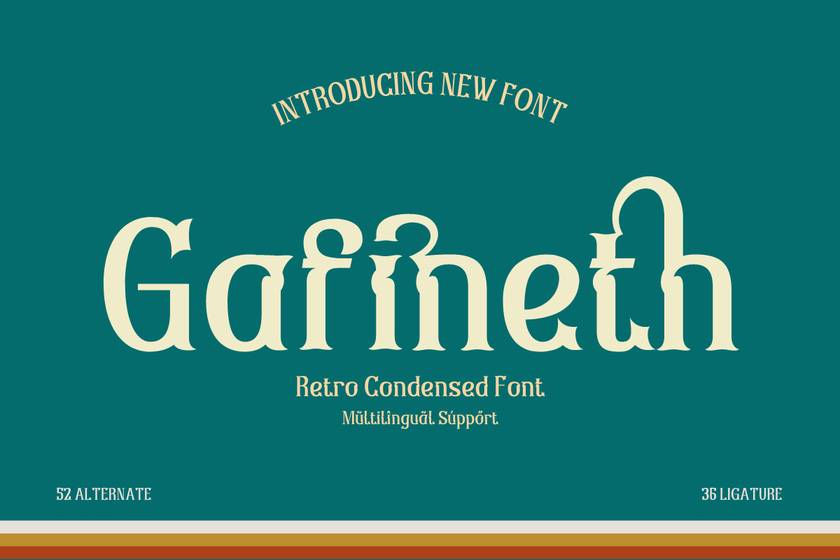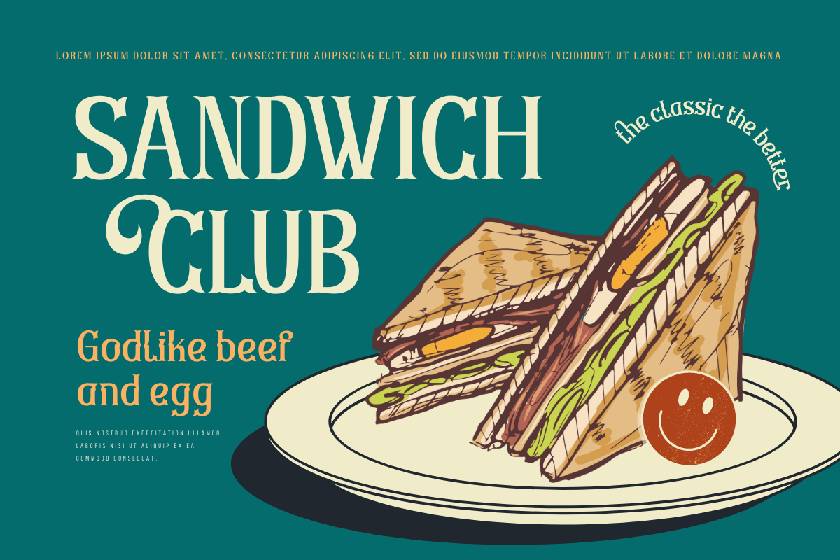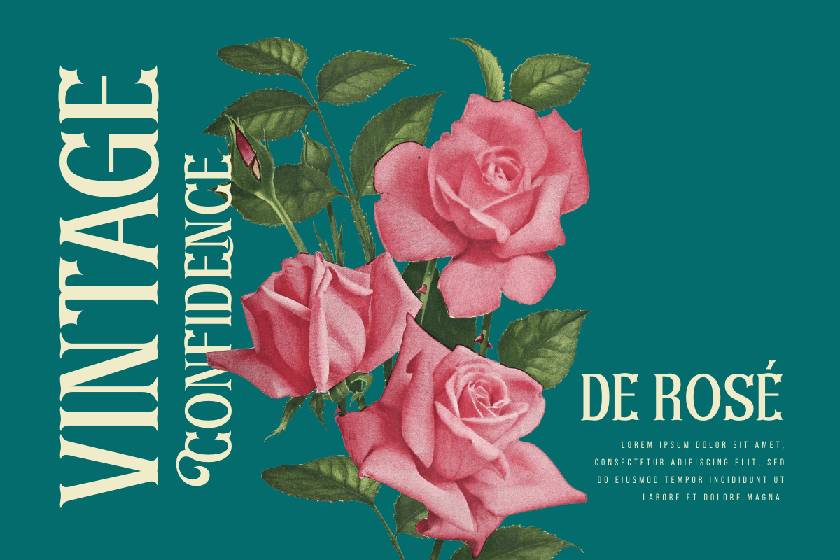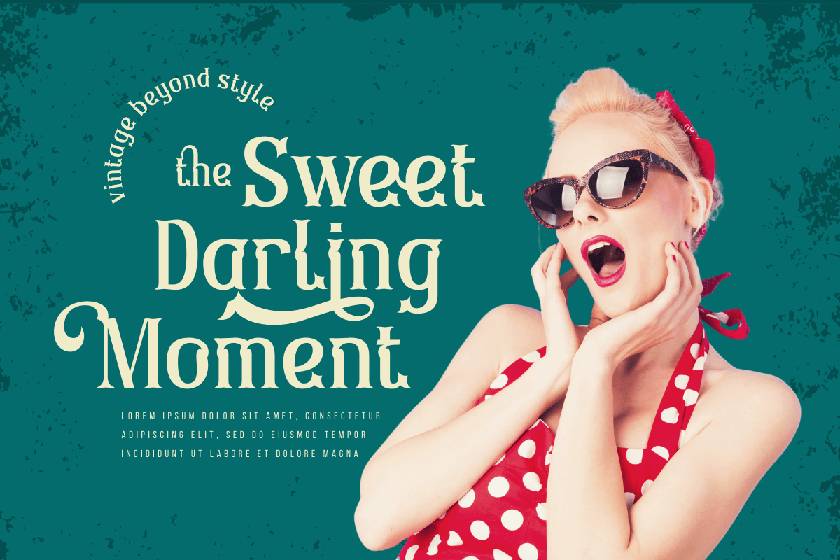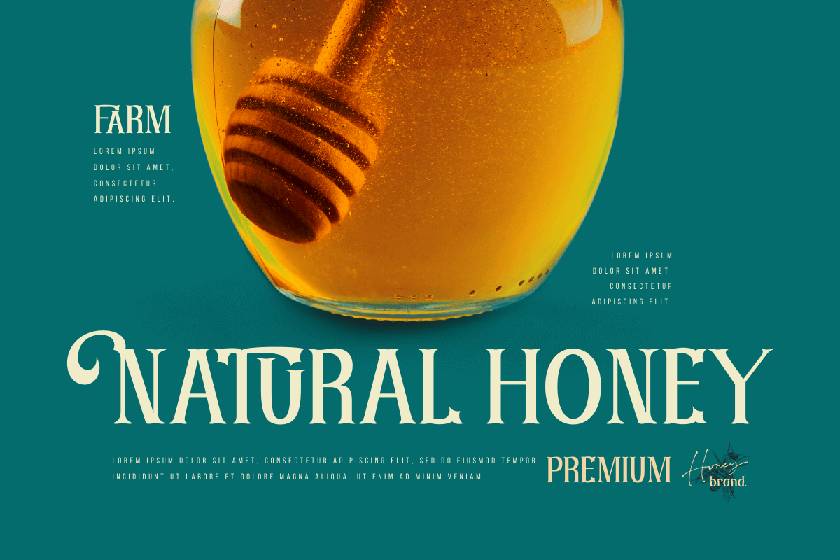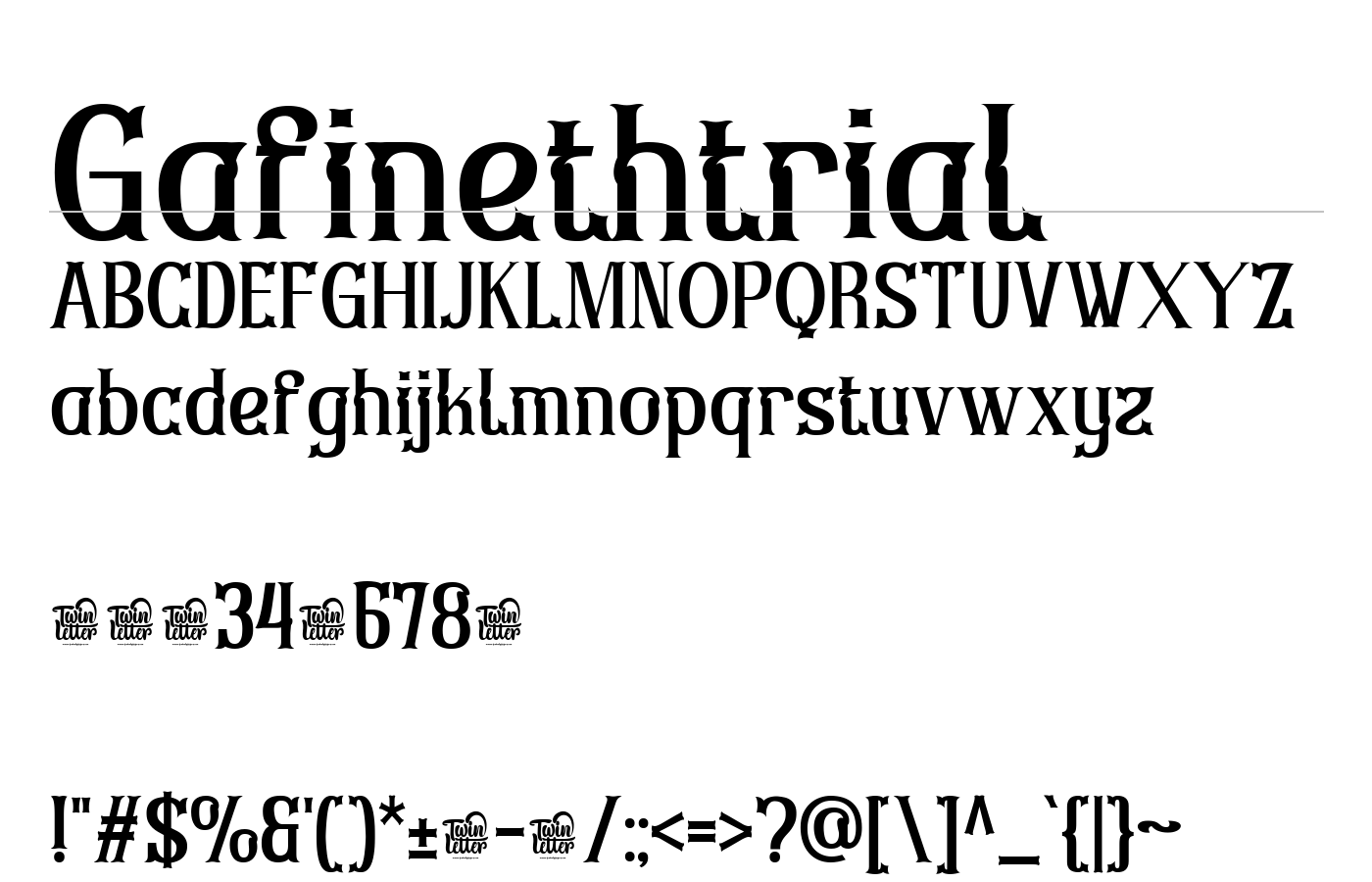
Gafineth is a distinctive serif font featuring a high contrast between thick and thin strokes with sharp, bracketed serifs that create a strong, vintage-inspired personality. Its condensed proportions and unique, stylized details give it an elegant yet bold presence, making it ideal for headlines, logos, and branding that seek a dramatic, classic look with a modern twist. This font works well in editorial design and luxury packaging where a striking, memorable impression is needed.
Gafineth Font
About Gafineth Font